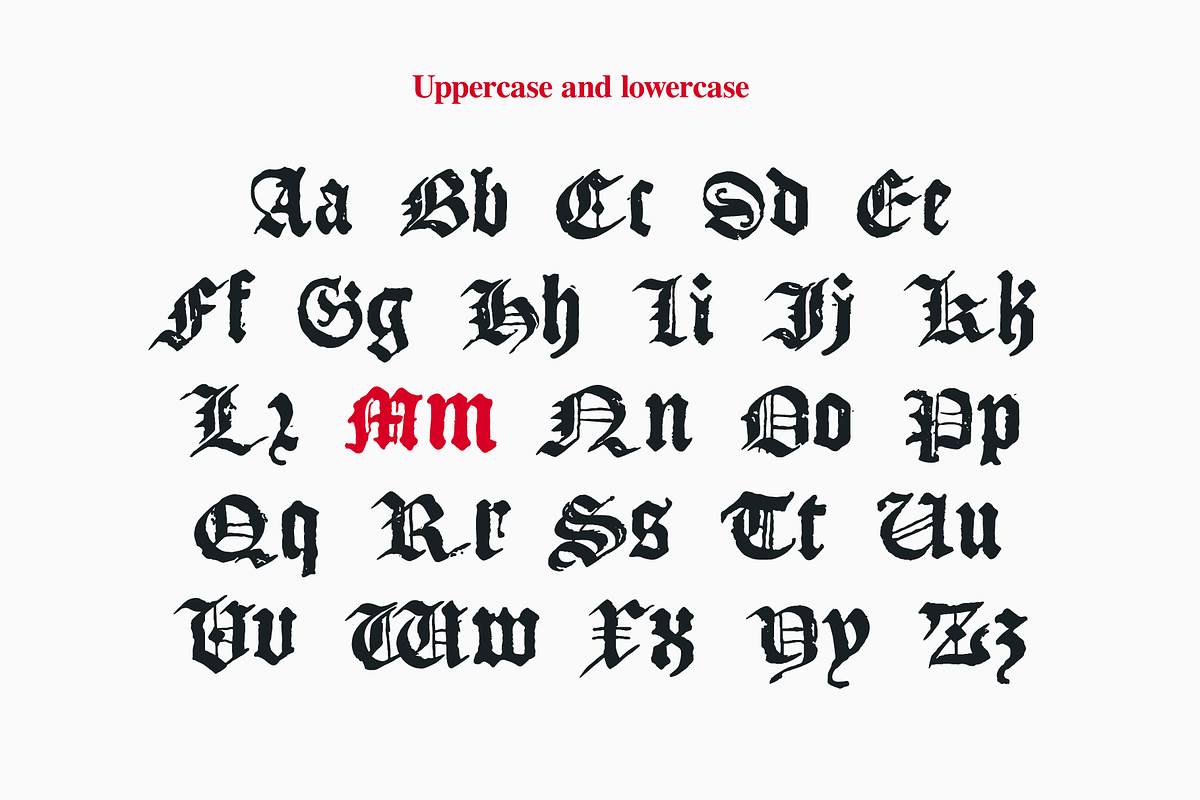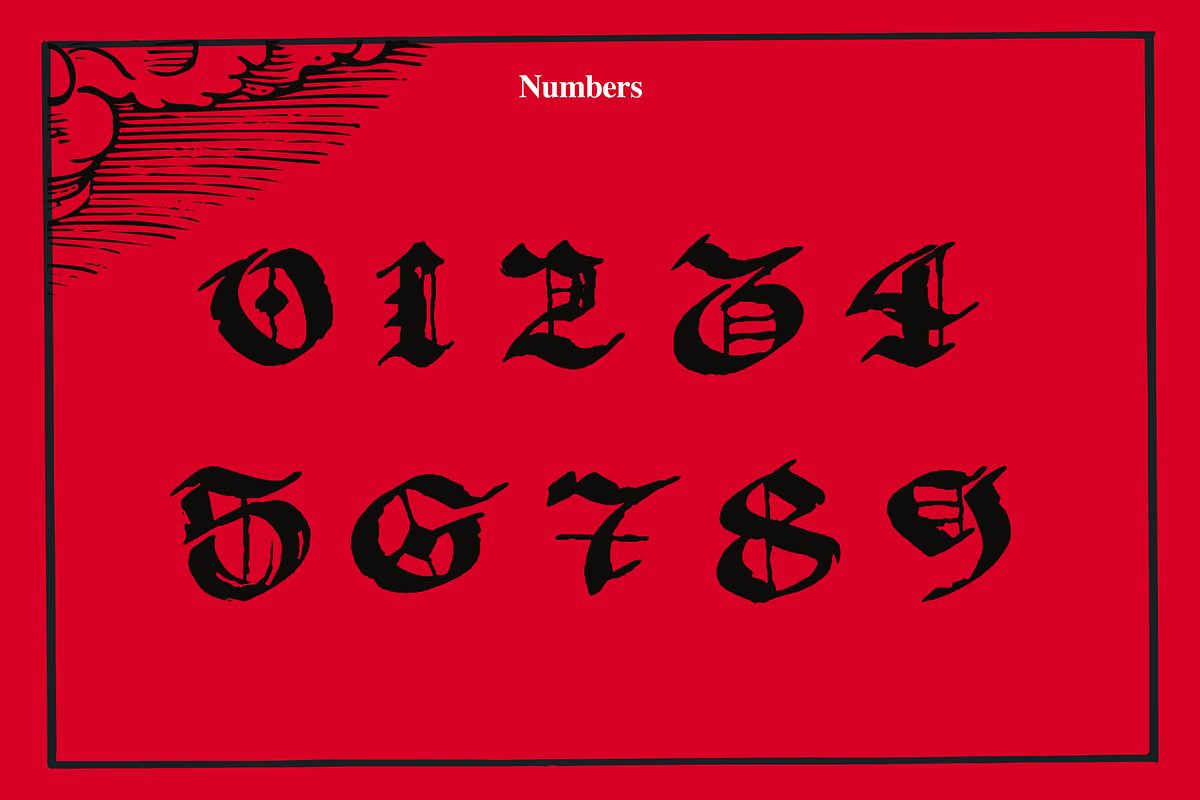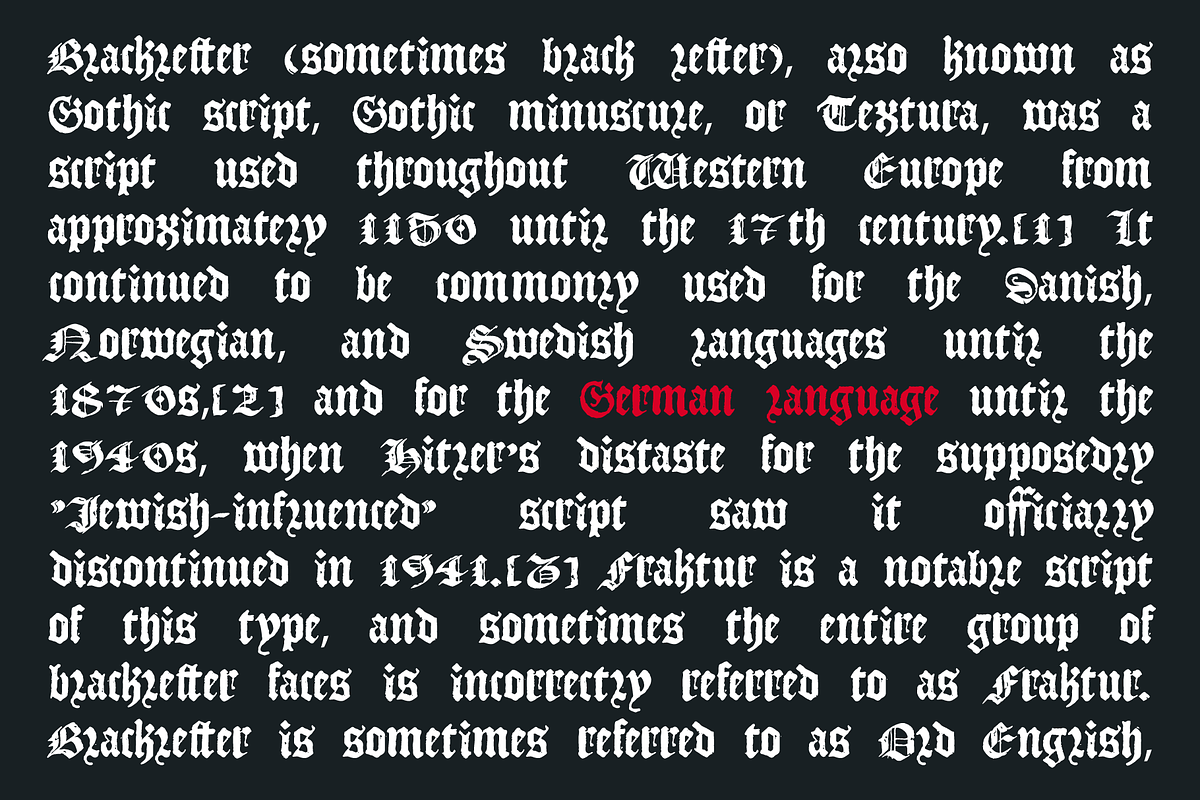
Landsknecht is a blackletter style calligraphy font. Do you need to design perfect alcohol labels, retro style logos, music album covers, circus posters, luxury packaging identity, etc.? If you want dark and strong medieval style concepts, please try it.
- Uppercase and lowercase
- Multilingual support
- Numbers
- Symbols
- Punctuation
- Ligatures
Landsknecht Blackletter Font Preview
This preview highlights the unique shapes and multi-height variations of the Landsknecht Font.